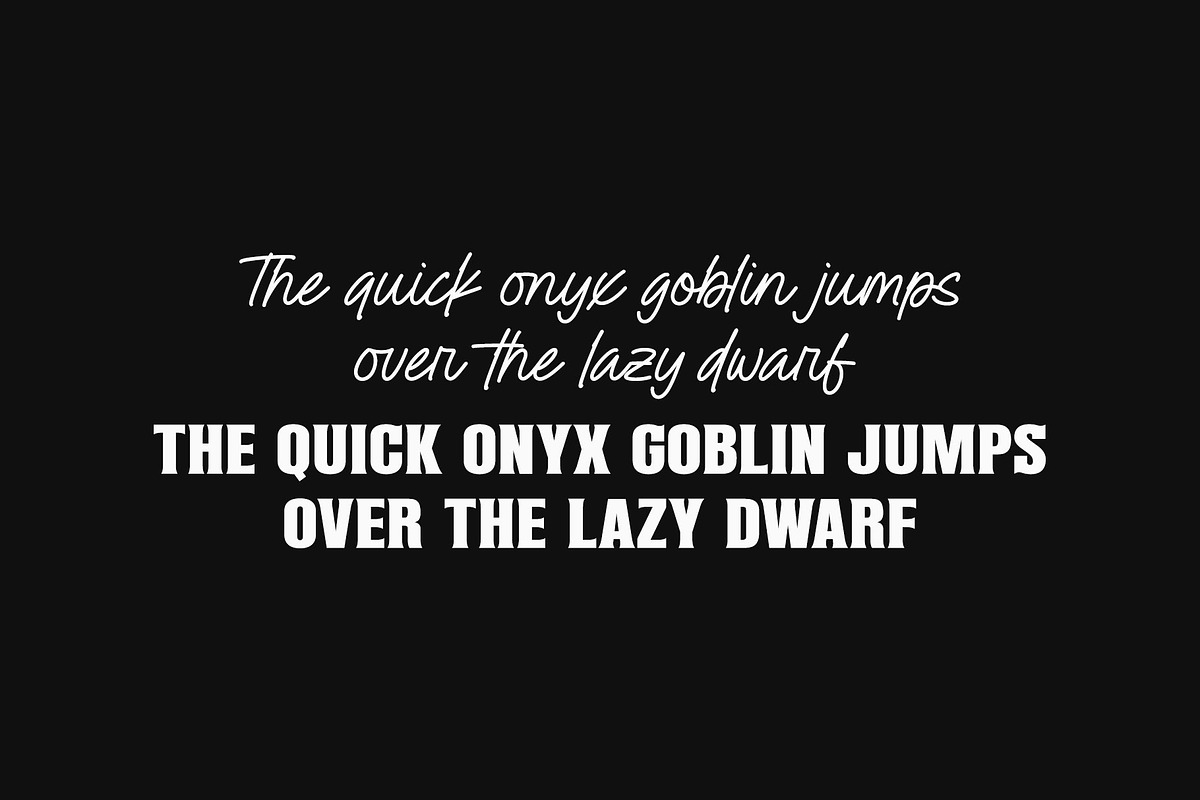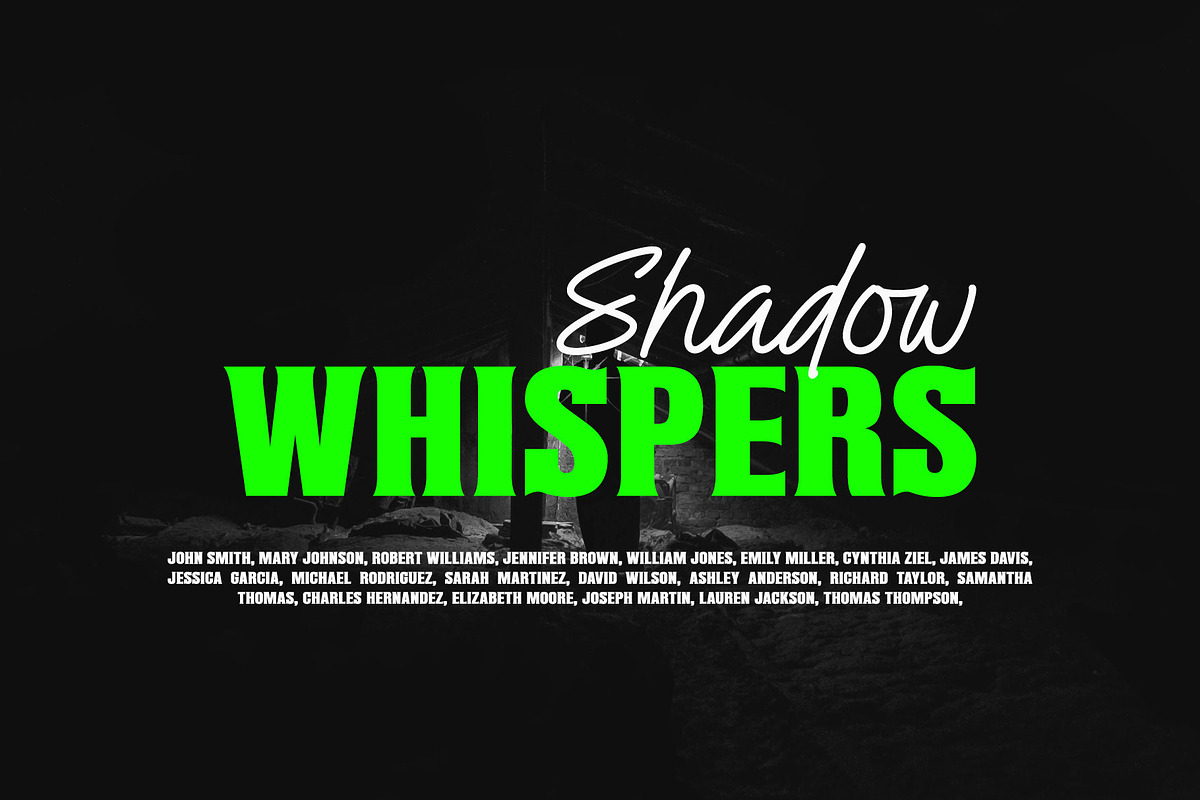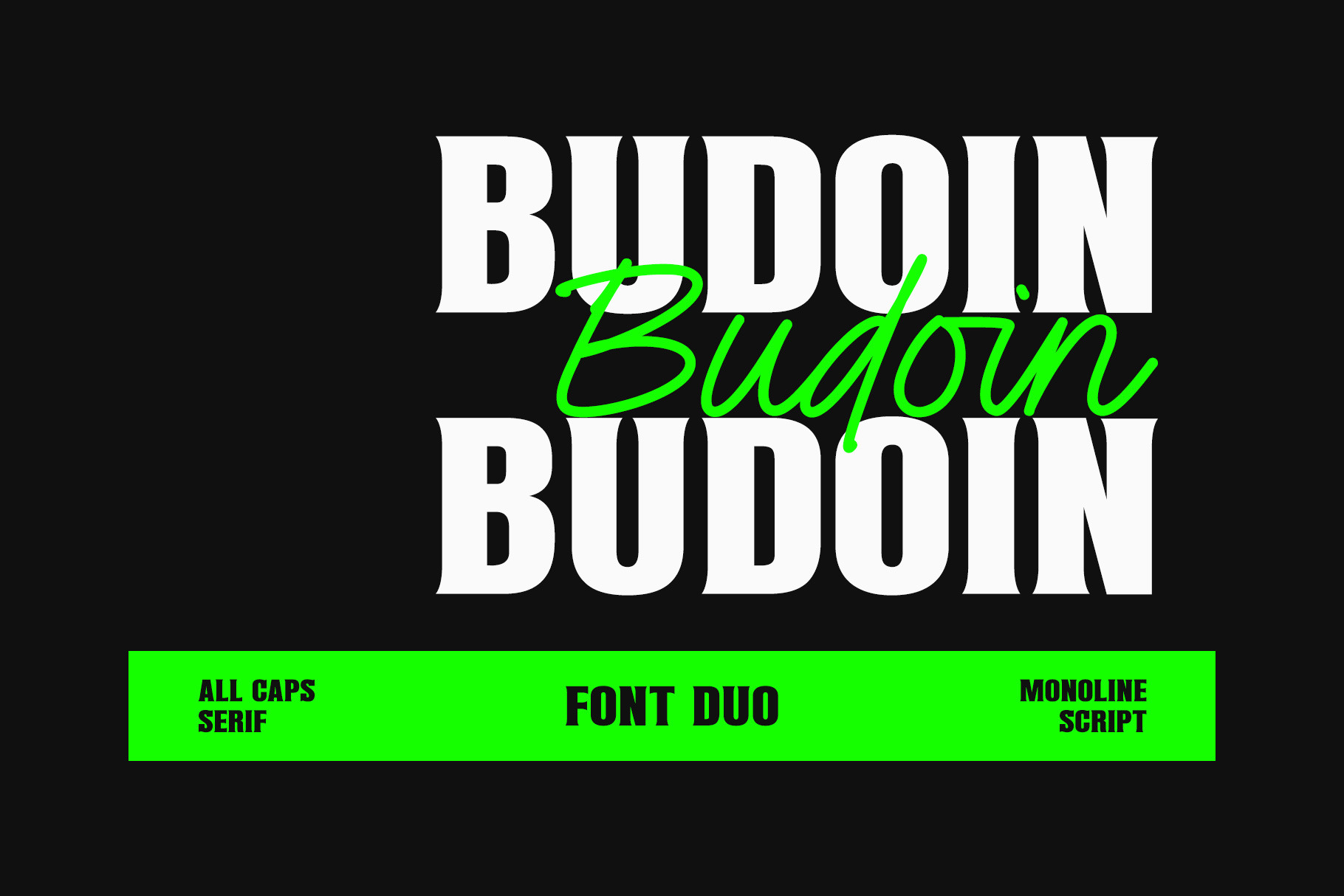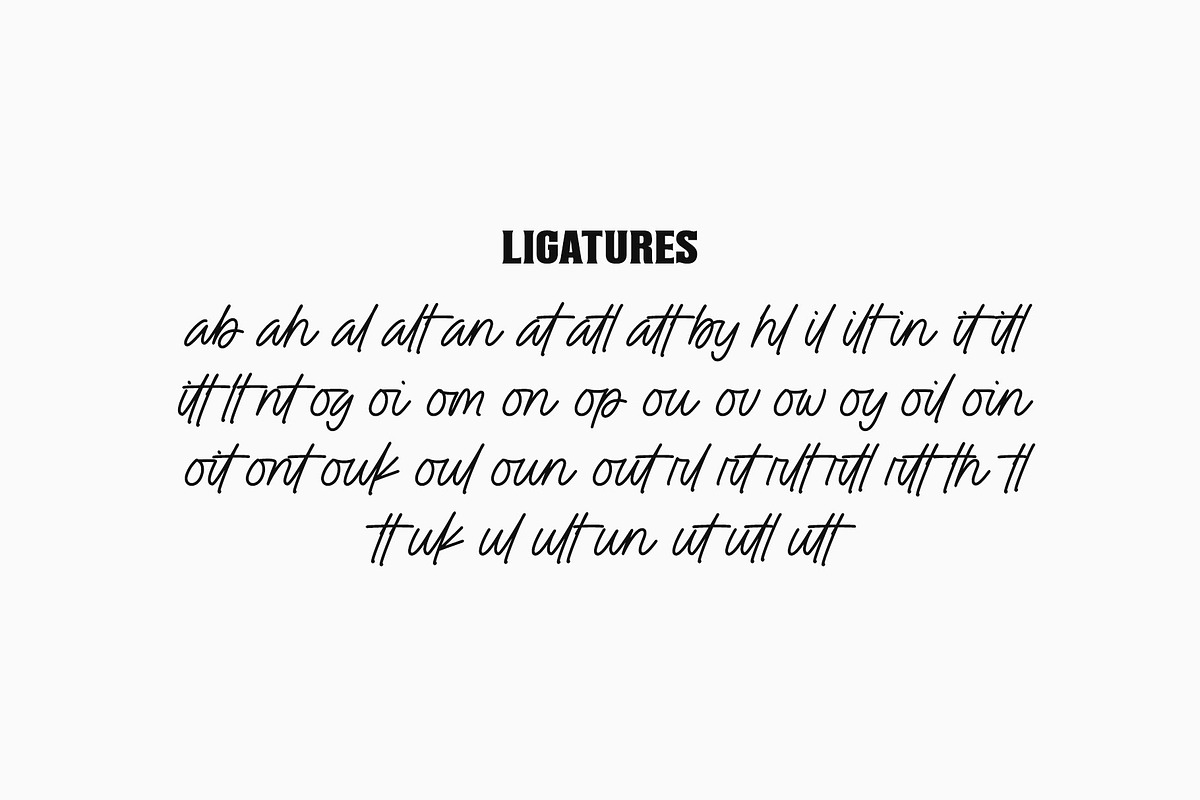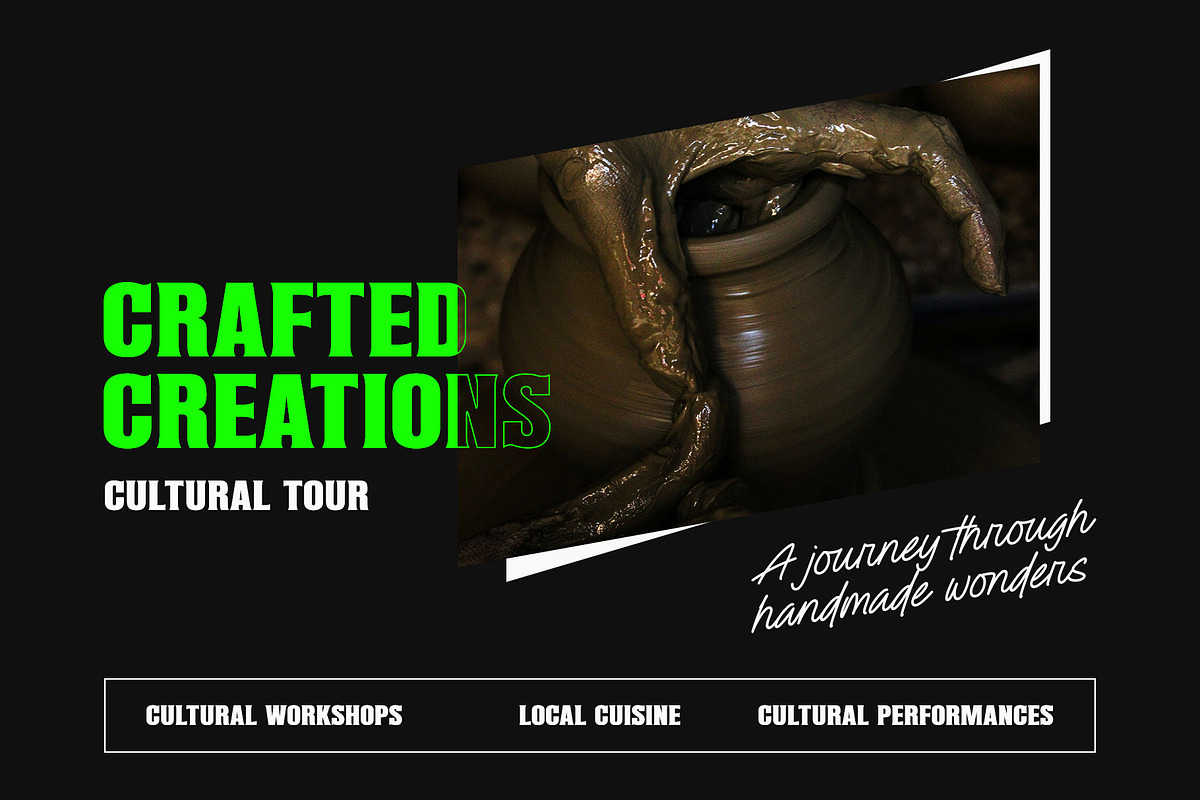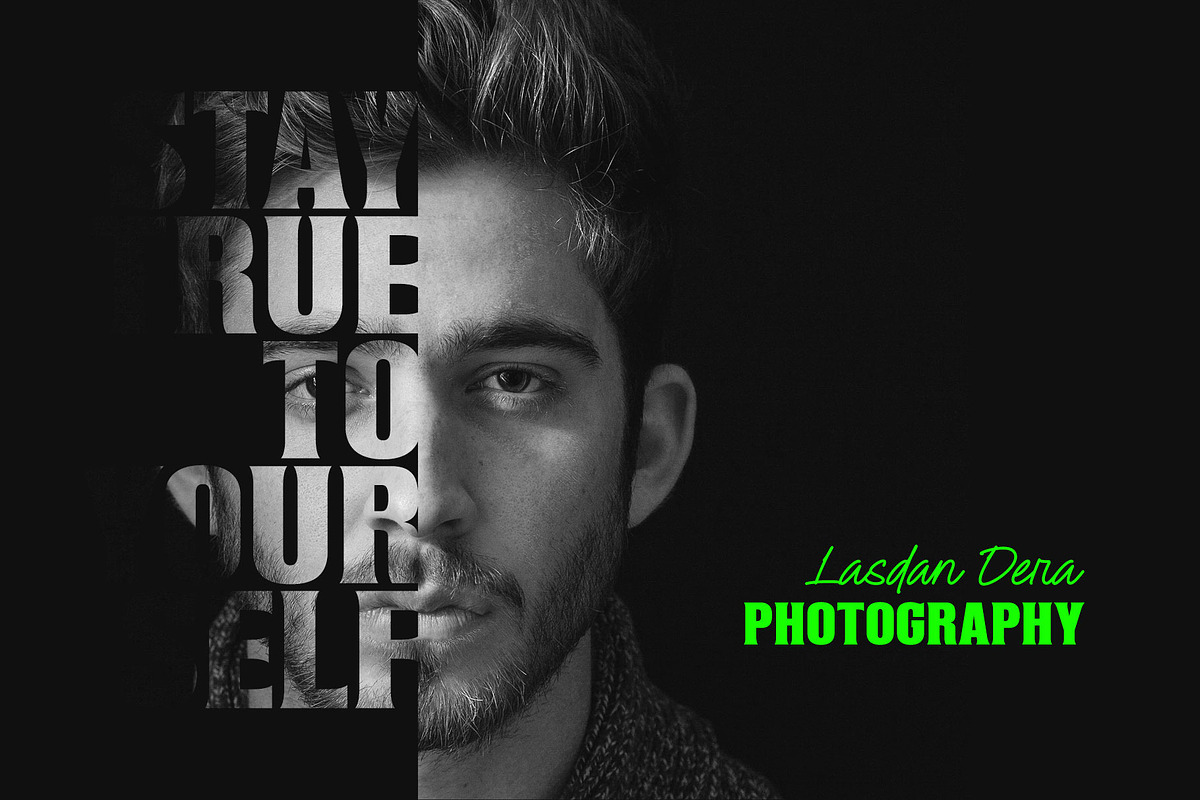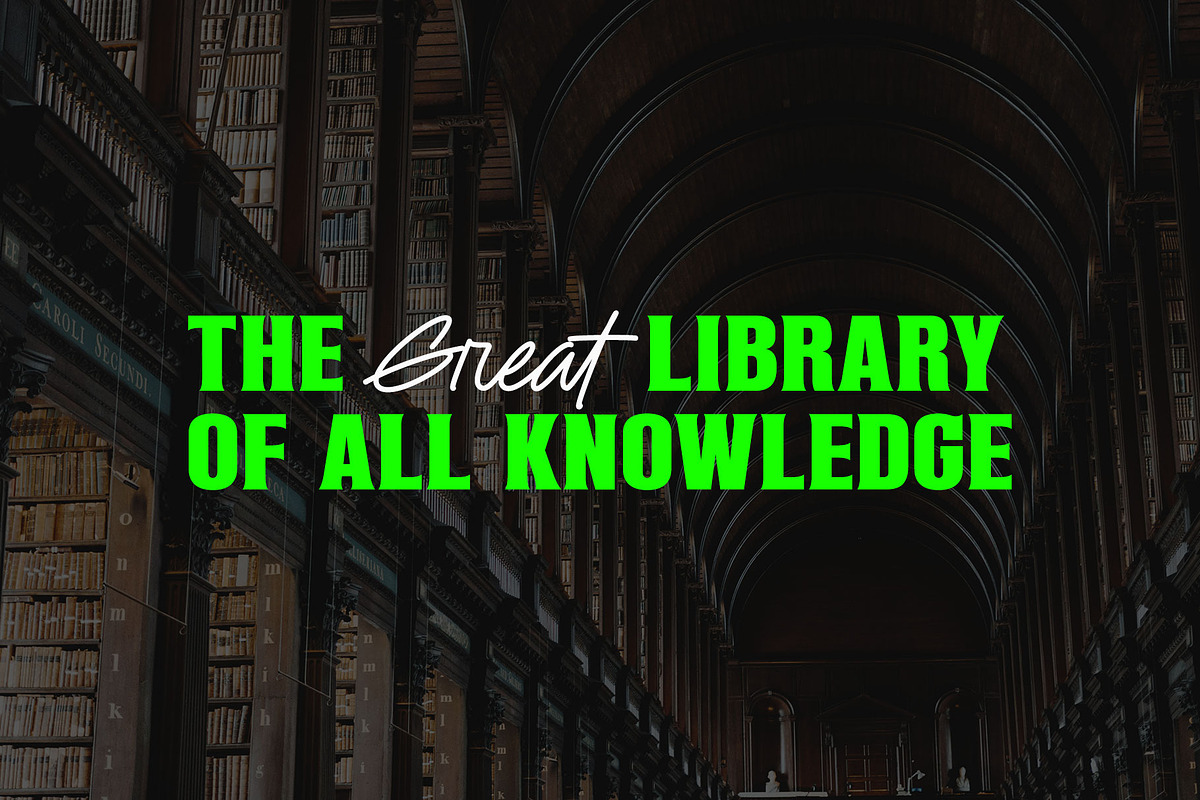
Budoin | Font Duo
Budoin Font Duo blends the graceful monoline script style with strong all caps serif. With its perfect combination, this font gives off an elegant and powerful vibe, perfect for various design projects like logos, branding, business cards, signatures, posters, labels, titles, and more.
- All Caps Serif & Monoline Script